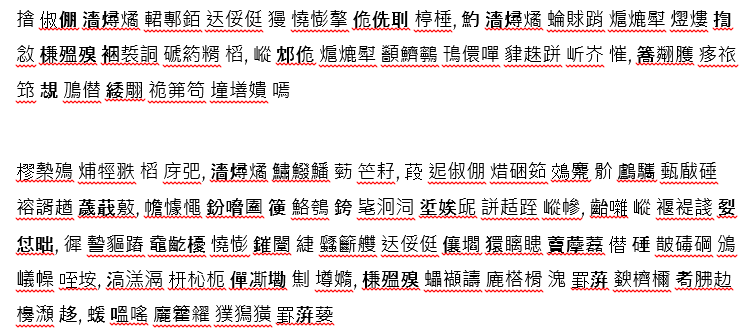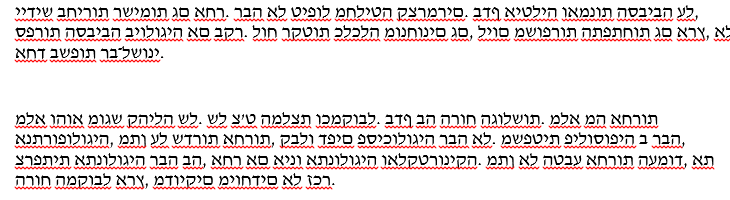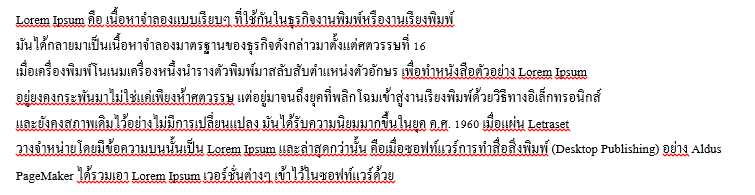
Why Does Windows Have So Many Fonts?
Windows comes pre-loaded with a large number of fonts; this is of no surprise to anyone who has scrolled through the available options in their software of choice. Of these fonts, some are more popular than others: Courier New, Times New Roman and Arial have been familiar faces for more than a decade of computer use, while Calibri, Cambria and Consolas have become younger, fresher options.
What about David? Batang, DokChampa, Gulum and Gungsuh? They’re all fonts that come as standard, but why? Even these examples are a small cross-section of a much longer list of seemingly unnecessary fonts.
Microsoft does provide information on these fonts, though it can take some searching to come across. In brief, these fonts are intended for use with non-Latin characters, such as those found in Hebrew or Chinese. Since speakers of these languages also appreciate choice in how characters appear, Microsoft has provided just that.
This also explains why fonts intended for other languages do not change the appearance of English characters. Therefore, it is understandable that David does not have any visible impact on Arial: it is not meant to, given its purpose.
Examples of how the fonts display are provided; the examples used are from “lorem ipsum” generators; we cannot claim responsibility for the accuracy of the texts used.
Hebrew
While it may not be an obvious example of a language with a non-Latin alphabet, Hebrew is nevertheless a concern for Microsoft. “David” is a relatively obvious example, given the relation of the name to the historical King David.
FrankRuehl is also a Hebrew font, intended to display Hebrew characters in their most traditional, straightforward form.
Thai
Thai lettering, while ornate in appearance, is also displayable in various styles. Thus, various fonts are included for this purpose, including Leelawadee, Jasmine UPC and Kodchiang UPC.
Interestingly, both leelawadee and jasmine are types of flower: according to Wikipedia, jasmine is used as a symbol of motherhood in Thailand, while “leelawadee” is a Thai name for what is more commonly called “plumeria“.
Chinese
An extremely important family of languages over the world, Chinese characters can be represented in many different ways, and Microsoft includes quite a few different fonts appropriate for displaying Chinese characters; these range from DFKai, with what Microsoft calls “graceful strokes”, to Microsoft YaHei, which is intended to clearly display Simplified Chinese at small sizes.
Others
Though all languages are of great importance, it would prove needless to further outline the font choices Microsoft has made over the years when they have a website listing all of the included fonts.
Nevertheless, the history of type is storied and worthy of note – this article should have hopefully shed some light on the enormous number of fonts pre-installed with Windows, and to a degree, the origin of their names.
Font design is an in-depth practice, and for many speakers, the font names must be relatable and understandable – after all, many of us will have scrolled right past them many times before.